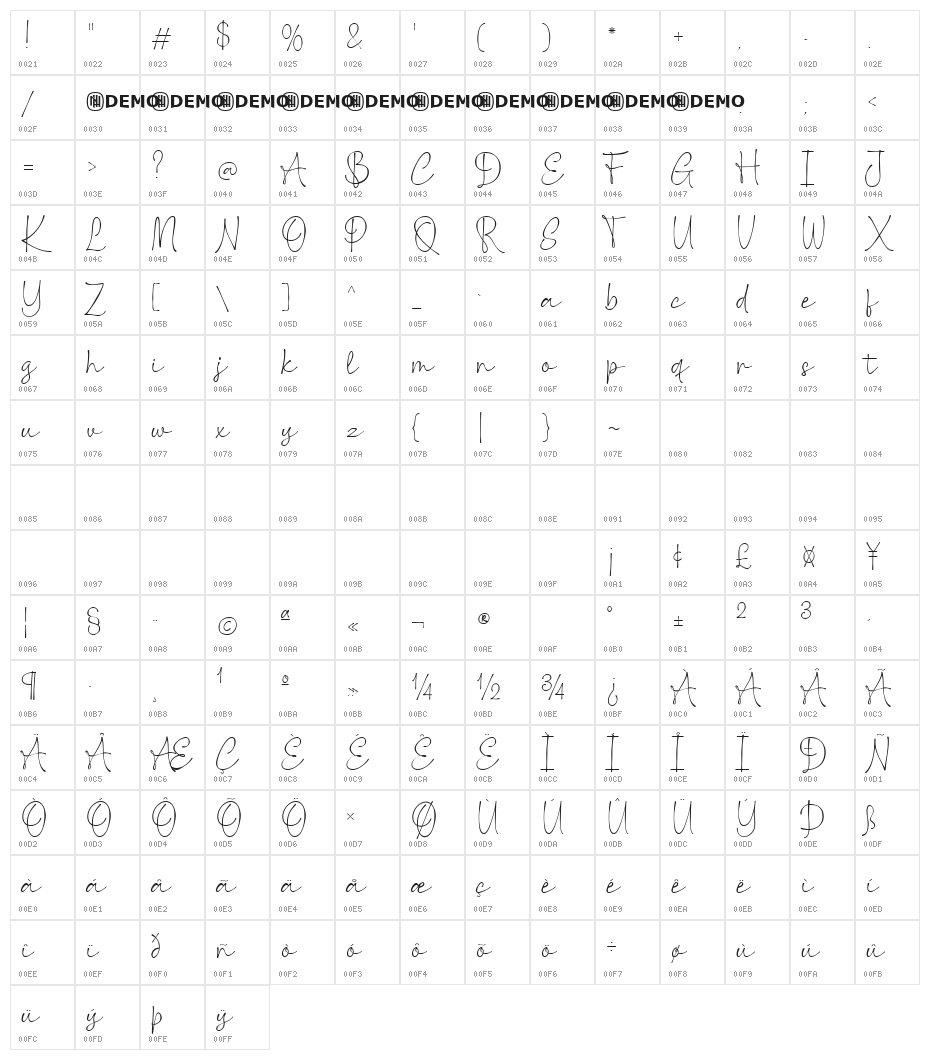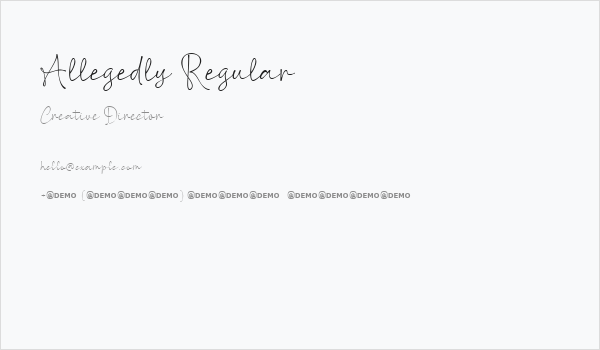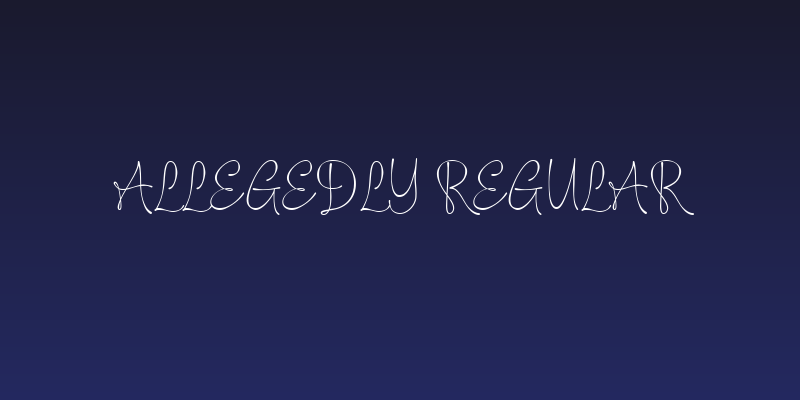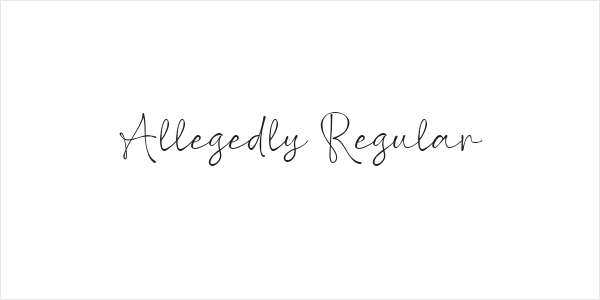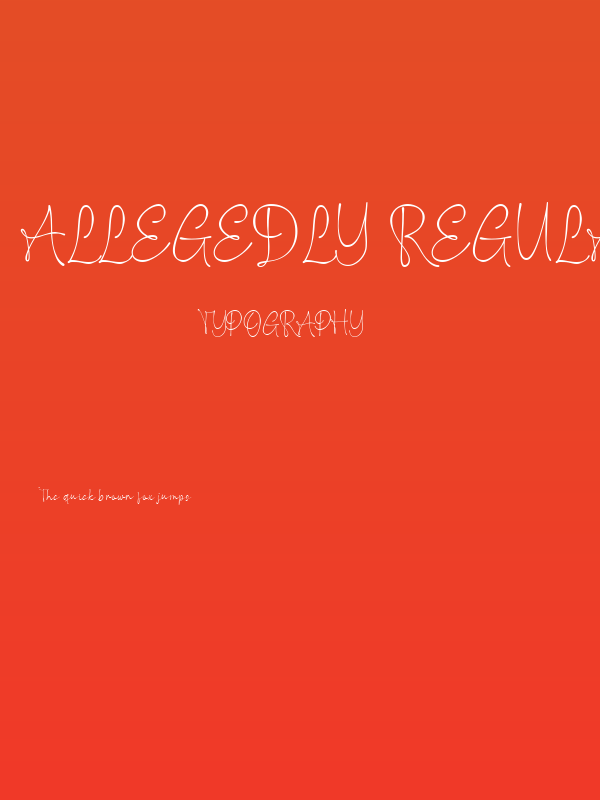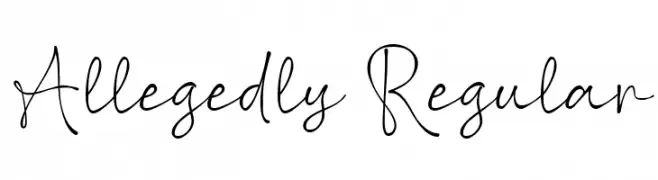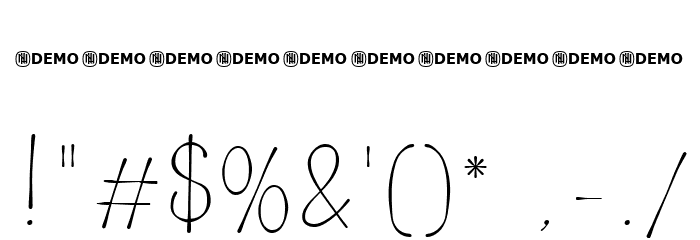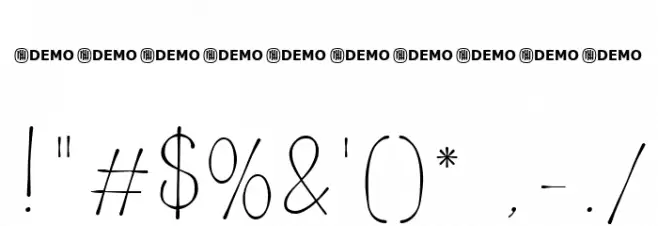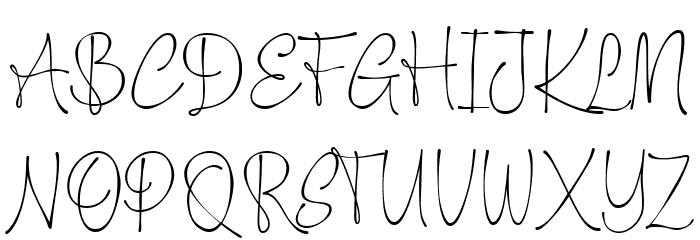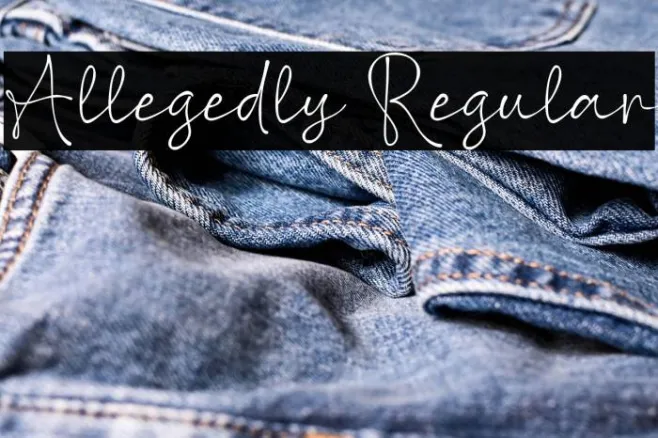
Allegedly Regular Font
Allegedly Regular Description
A playful, monoline handwritten script with tall, narrow letterforms and fluid, looping strokes. The characters have a casual, whimsical feel, with consistent stroke thickness and generous spacing.
| Overall Style | Playful, Casual, Modern |
| Use Case | Logos, Headlines, Decorative text, Invitations |
| Proposed Projects | Greeting cards, invitations, personal branding, quotes, social media graphics. |